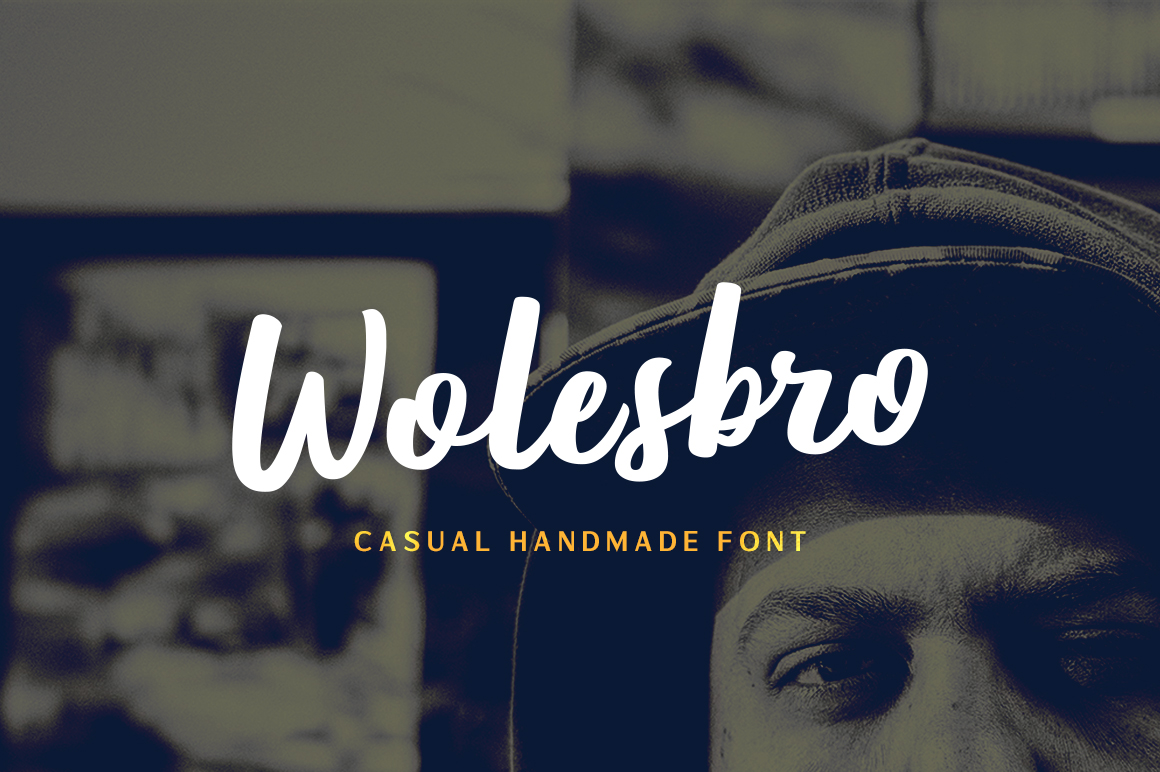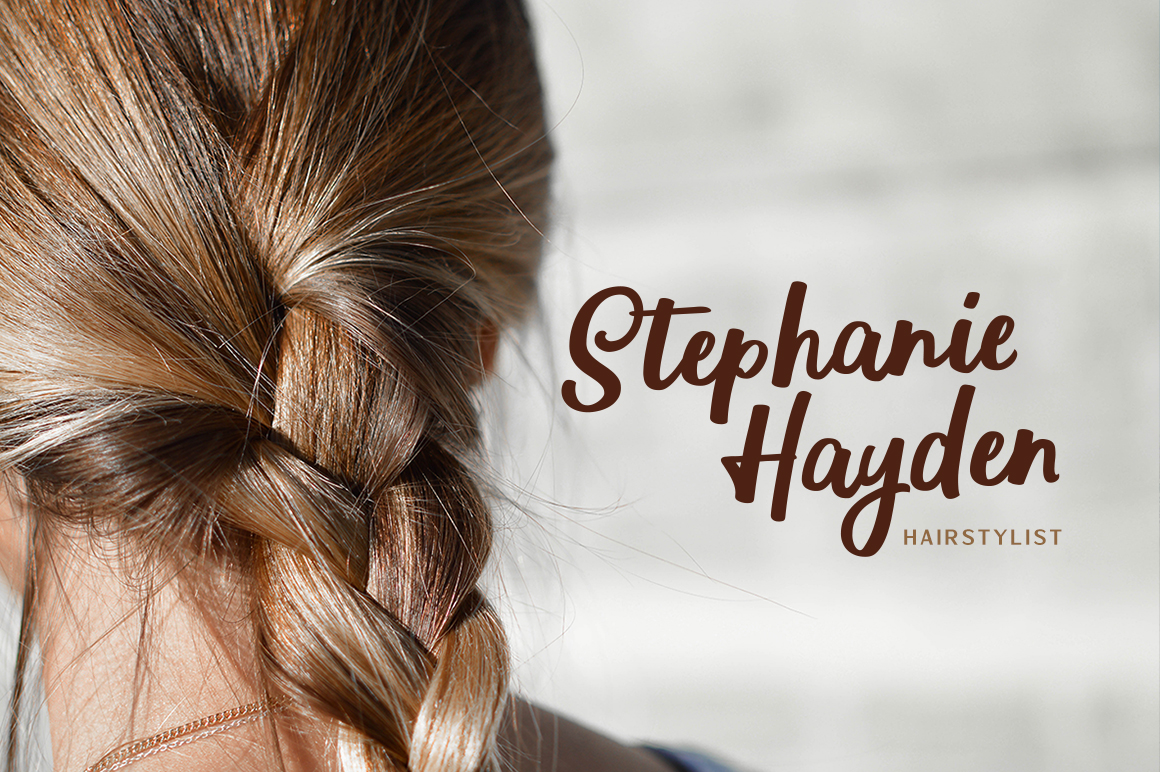
Wolesbro Font
Introducing Wolesbro, a brush font designed to give a natural handwriting look without forgetting readibility for typography. Comes with two different brush styles; Wolesbro One and Wolesbro Two so you can more easily work with your design. Including OpenType features include: Ligatures for natural double letters and Contextual Alternates for casual terminal form. This font is PUA encoded.